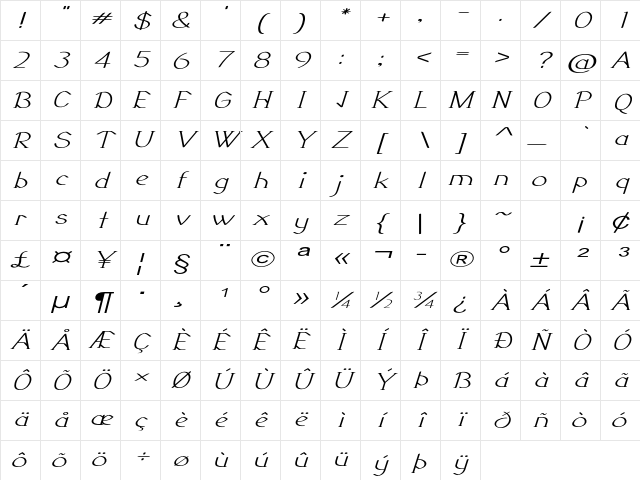
Galavin Extra-expanded Italic
Style: Extra-expanded Italic
Galavin Family
Galavin Extra-expanded Italic
Galavin Extra-expanded Italic Font Preview
Galavin Extra-expanded Italic Uppercase Preview
Galavin Extra-expanded Italic Lowercase Preview
Galavin Extra-expanded Italic Numeric Preview
Galavin Extra-expanded Italic Character Map
Complete Galavin Extra-expanded Italic glyph index. Displaying only characters natively supported by Galavin Extra-expanded Italic font.
Galavin Extra-expanded Italic Character Map
Design Context for Galavin
Galavin is a composed and adaptable typeface that performs quietly and consistently across a wide range of design contexts. The slanted form adds forward momentum and visual energy.
Pro Tip: Use Galavin for emphasis, pull quotes, and subheadings where its slanted energy can add rhythm to the layout.